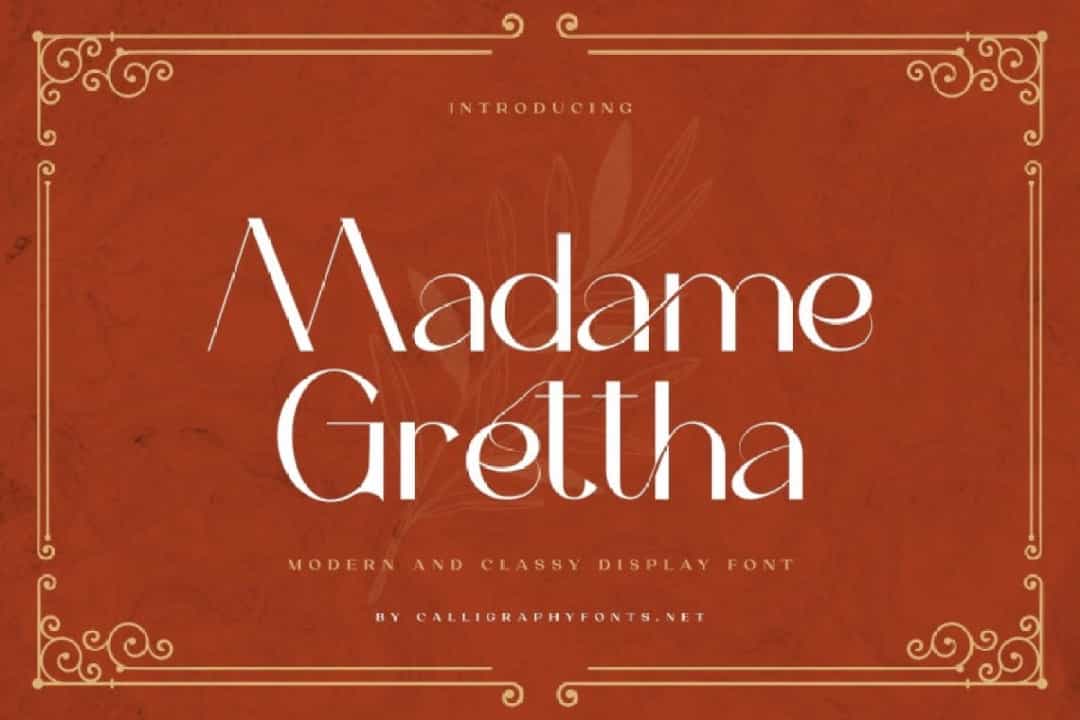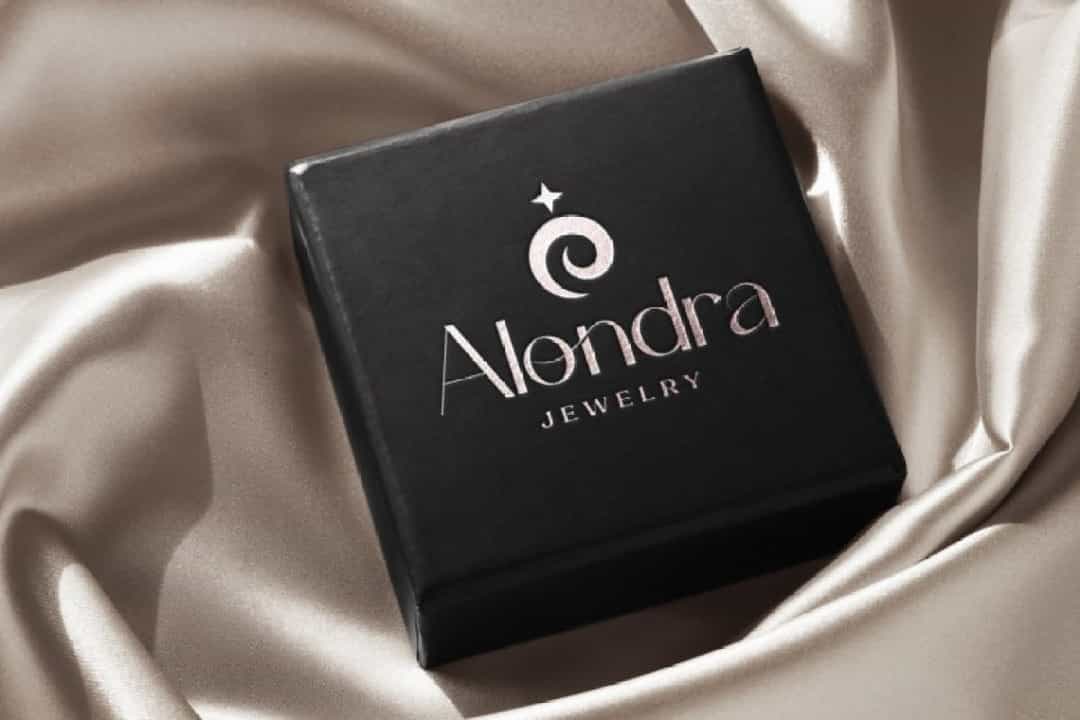
Madame Grettha is a classy sans serif display font with unique look. This typeface is perfect for beauty care, boutique, business card, elegant & luxury product, fashion brand, jewelry store, label, lettering art, logo, magazine design, headline, movie title, packaging design, quote, and many more!